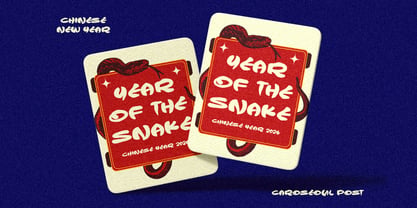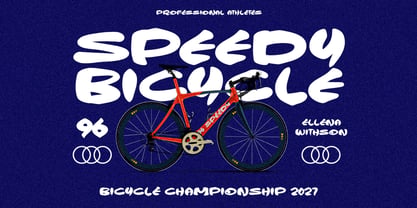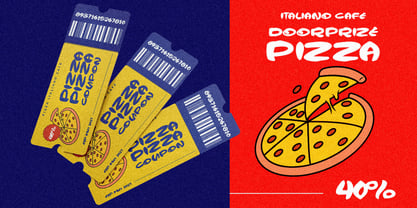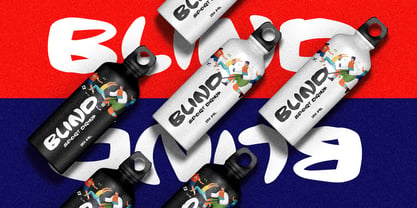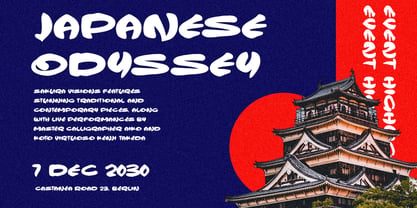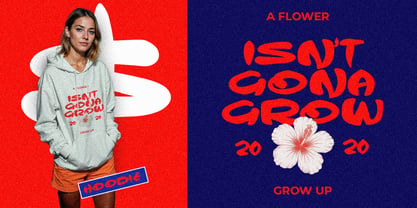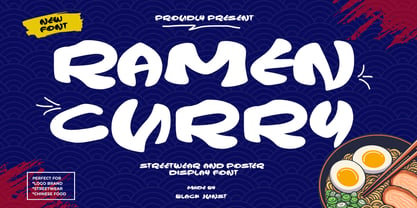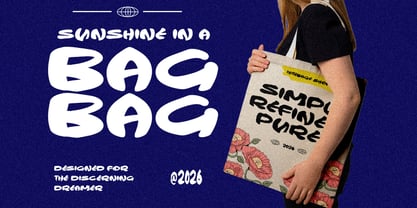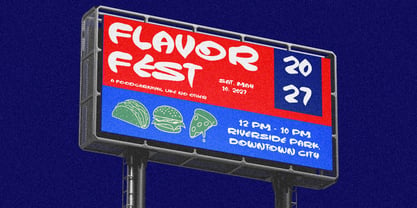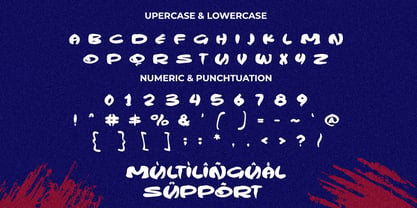
Ramen Curry
by Black Junst
The Ramen Curry Font Family was designed by Maulana Semar and published by Black Junst. Ramen Curry contains 1 styles. More about this family
Ramen Curry is a bold hand-drawn display font inspired by Japanese street culture, ramen shop signage, urban posters, and modern streetwear branding. Featuring chunky, organic letterforms and a playful energy, this font delivers a strong visual impact while maintaining a fun and approachable personality. It is ideal for food branding, Asian restaurant logos, noodle packaging, café menus, YouTube thumbnails, posters, stickers, apparel, and trendy social media content. The unique curves and bold silhouette ensure your typography stands out instantly, making it perfect for branding that requires a youthful, expressive, and eye-catching style. Whether you are designing streetwear merchandise, modern food packaging, retro posters, or bold headline designs, Ramen Curry brings a fresh urban vibe that feels authentic, energetic, and highly marketable. **Features:** - Uppercase & Lowercase - Numbers & Punctuation - Multilingual Support - Bold Organic Style - Perfect for Headlines & Branding - Easy to Use **Perfect For:** - Streetwear Branding - Food Branding - Restaurant Logo - Poster Design - Packaging Design - Social Media Graphics - YouTube Thumbnail - Merchandise & Apparel - Sticker Design - Urban Branding
Designers: Maulana Semar
Foundry: Black Junst